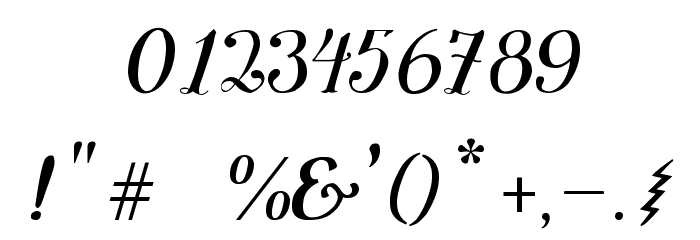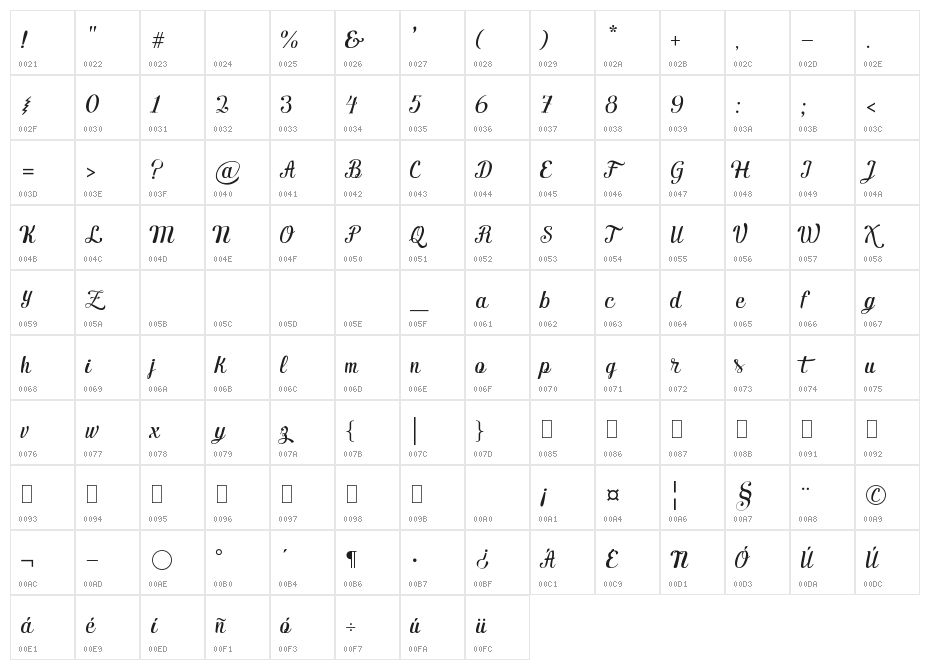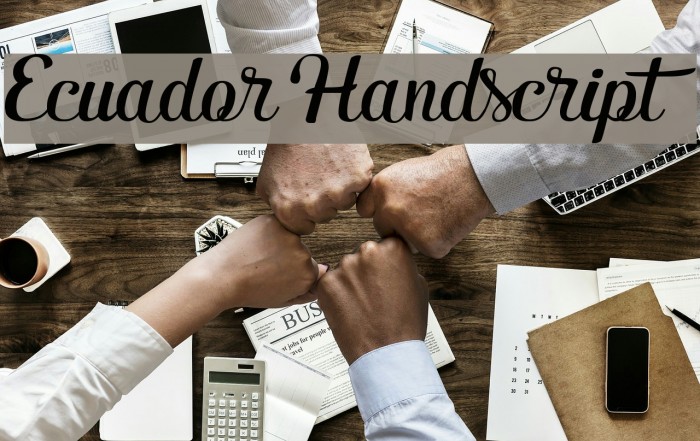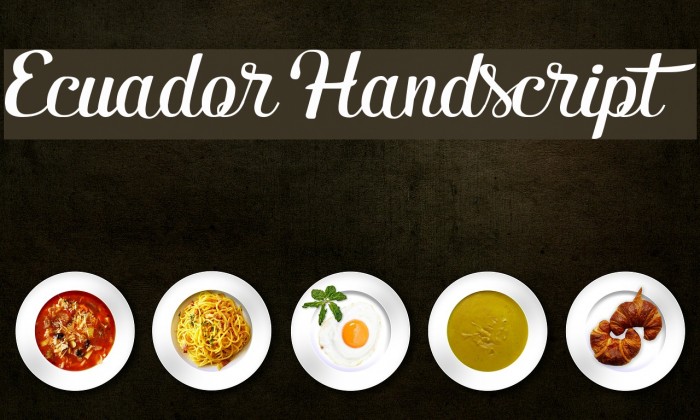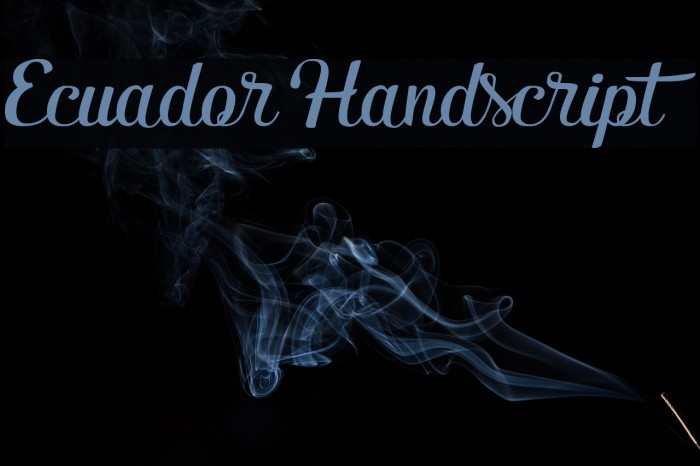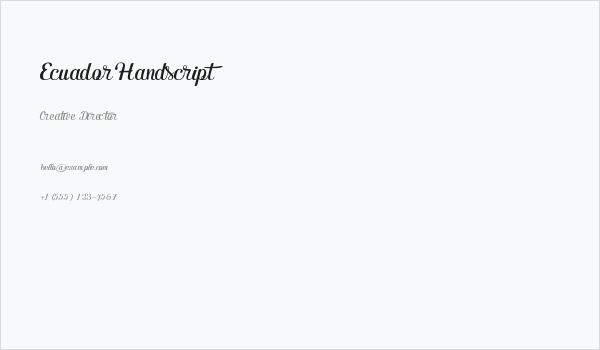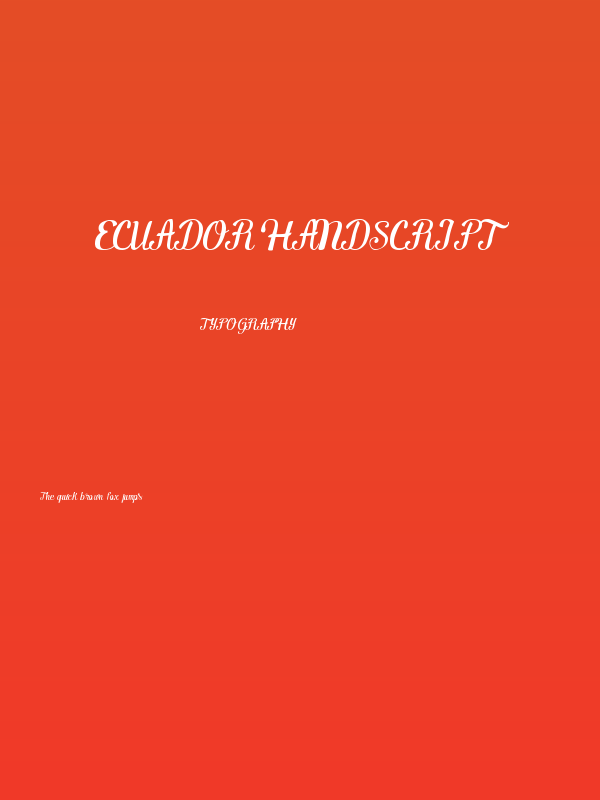
Ecuador Handscript Font
Ecuador Handscript Description
This font exudes a classic and elegant handwritten style, characterized by its flowing and connected letterforms. The uppercase letters are bold and prominent, with graceful curves and flourishes that add a touch of sophistication. The lowercase letters maintain a consistent flow, enhancing readability while preserving the script's artistic flair. Numbers are well-integrated, matching the overall style with slight embellishments. Special characters are thoughtfully designed, complementing the font's aesthetic with subtle yet distinct features. This font is ideal for projects that require a personal and refined touch, such as invitations, branding, and decorative text.
| Proposed Projects | Ideal for wedding invitations, branding, greeting cards, and decorative headings. |